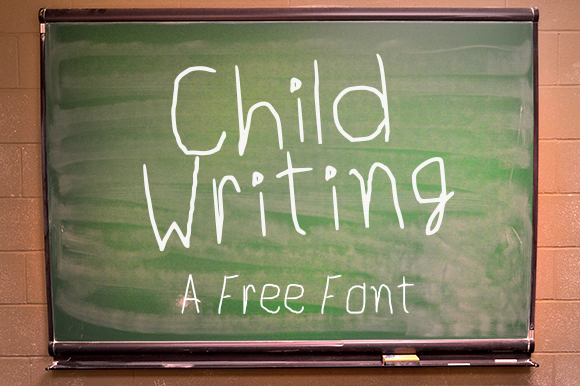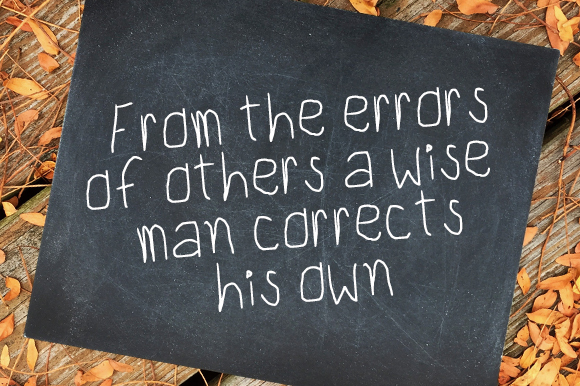
Child Writing a fun and carefree font by designer JP Castro. This free font is charming and simple, and can add a youthful vibe to your children’s oriented designs.